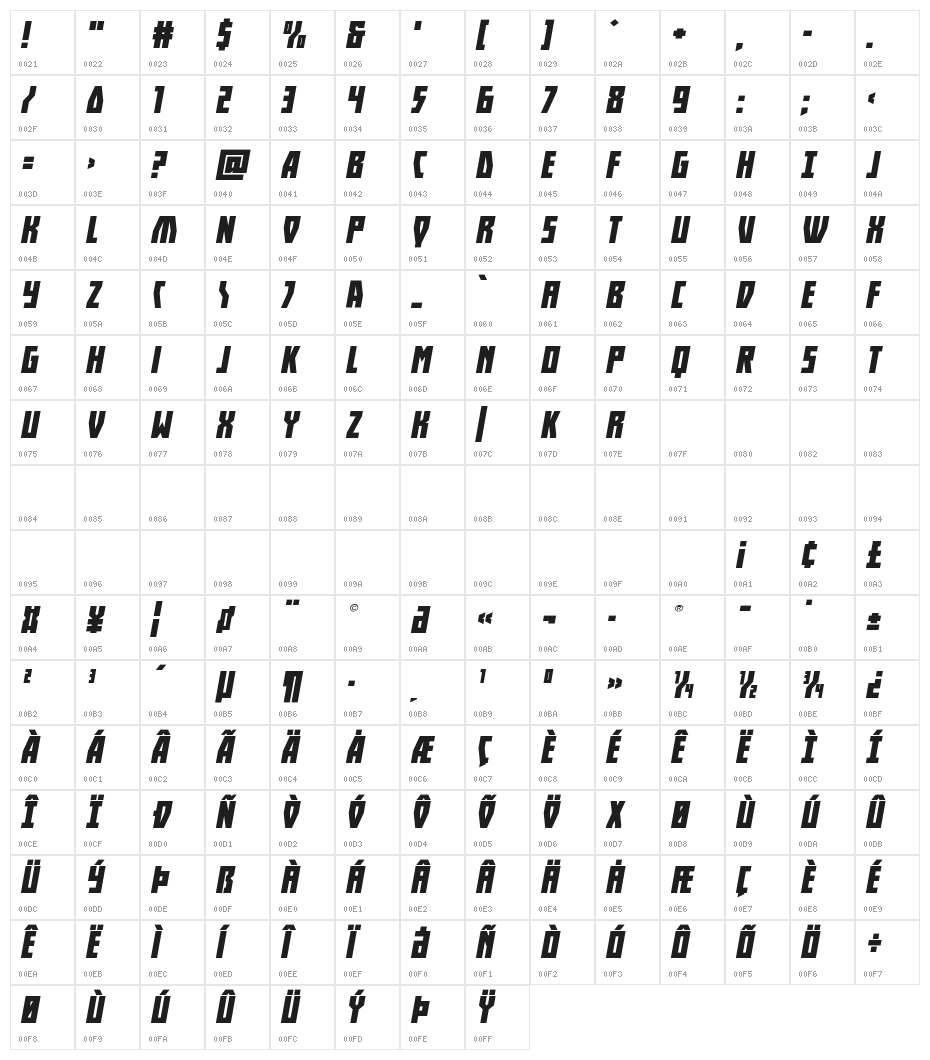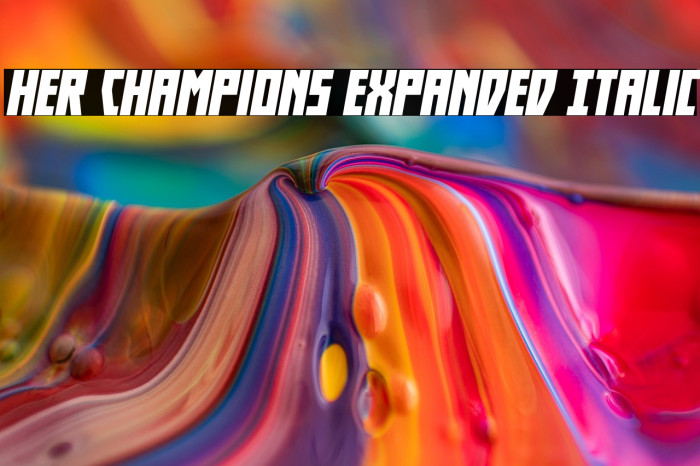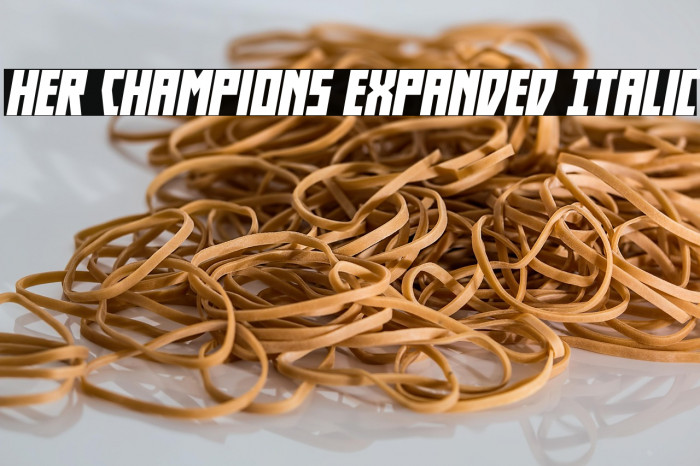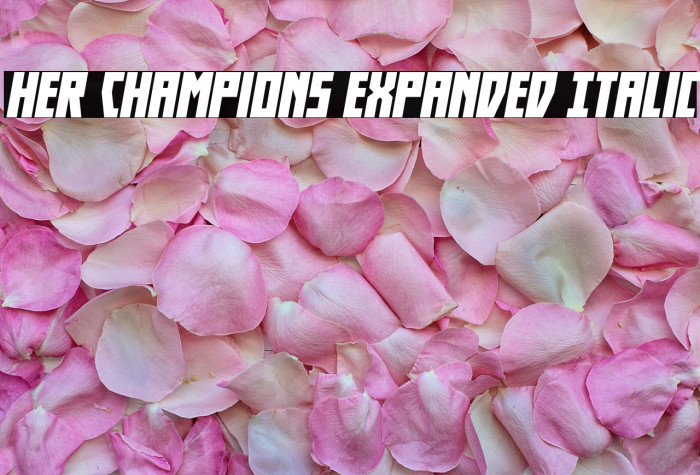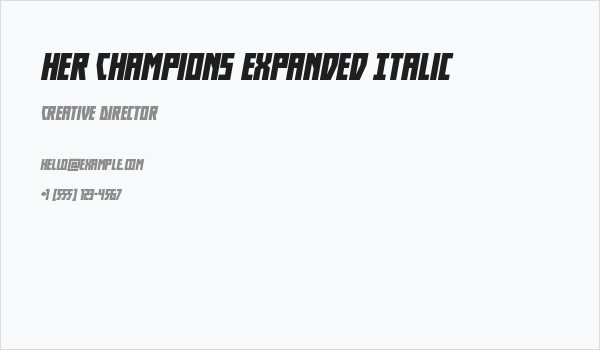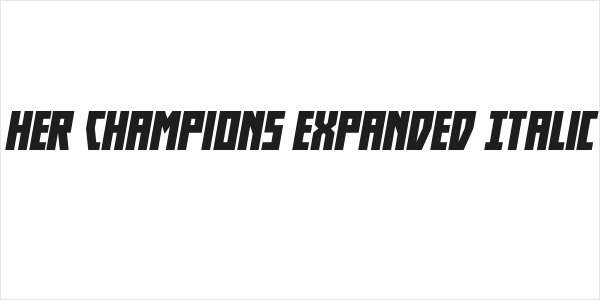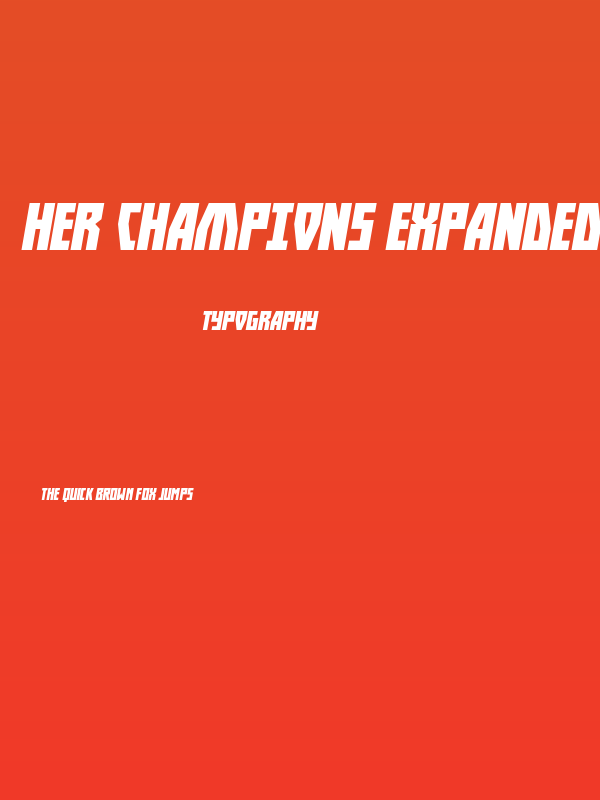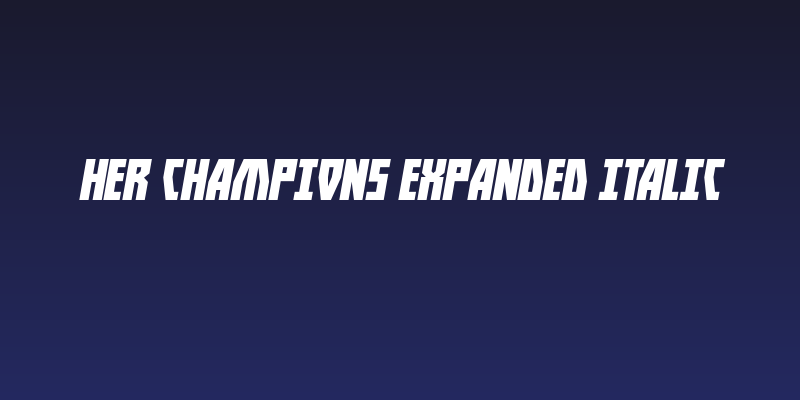
Her Champions Expanded Italic Font
Her Champions Expanded Italic Description
This font features a bold and dynamic design with an italicized slant, giving it a sense of movement and energy. The characters are expanded, providing a wide and commanding presence. The angular and geometric shapes of the letters contribute to a modern and sporty aesthetic, making it ideal for attention-grabbing headlines and titles. The font maintains a consistent stroke width, offering a uniform and cohesive look across all characters. Its distinctive style is both assertive and stylish, suitable for projects that require a strong visual impact.
Proposed ProjectsIdeal for sports branding, dynamic posters, event promotions, and bold headlines.